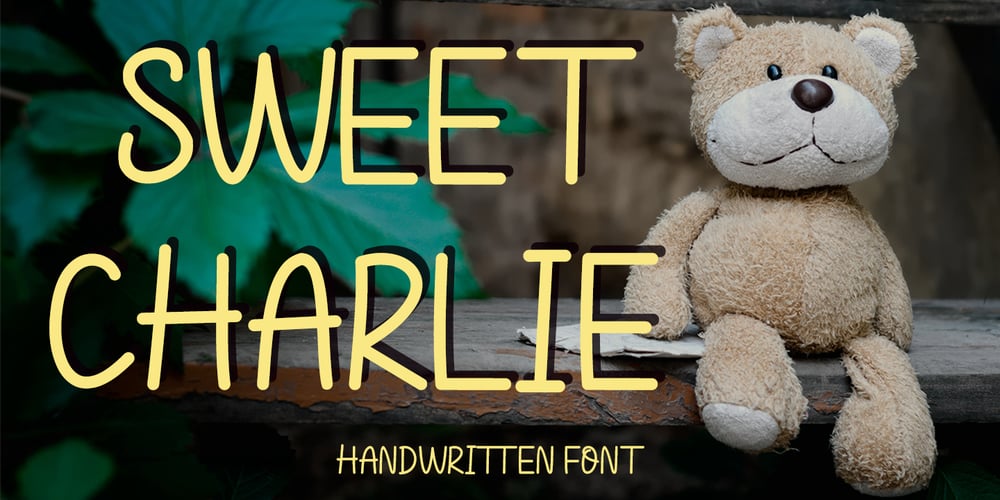
Sweet Charlie
Sweet Charlie font
Sweet Charlie Font Family was designed by Agung Eko Nugroho and published by AEN Creative Studio. Sweet Charlie contains 1 styles and family package options. Sweet Charlie is a fun, quirky and authentic font that will easily embody any romantic craft idea. It will turn any creative idea into a true standout.